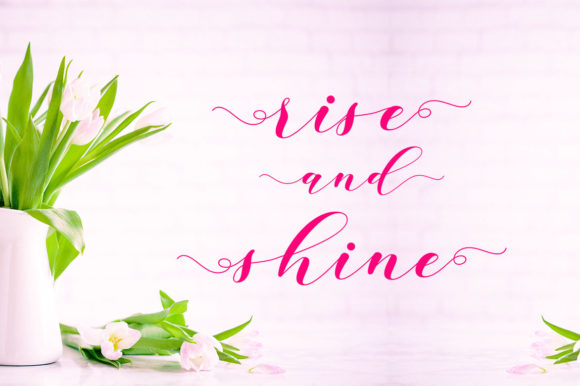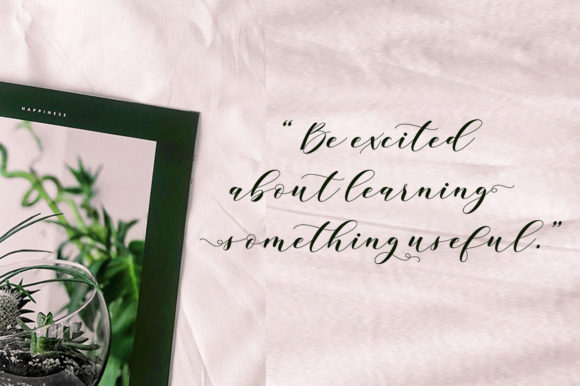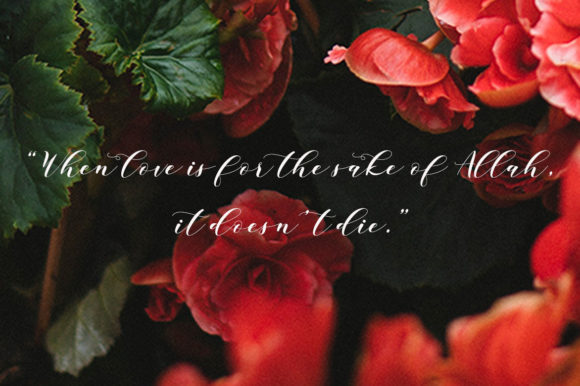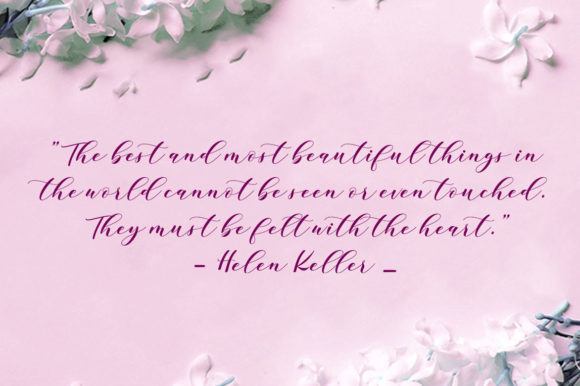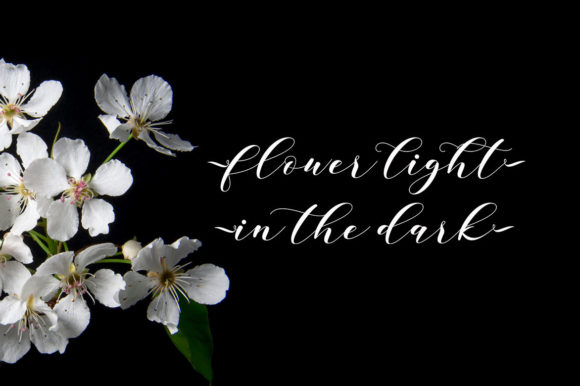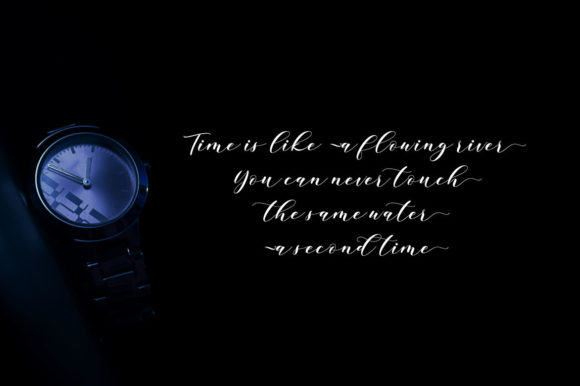
Introducing Baginda Font: Elevate Your Designs with Luxury and Elegance
Are you looking for a font that can add a touch of luxury and sophistication to your design projects? Look no further than Baginda Font, a beautiful light handwritten font that is sure to make your designs stand out. With its unique feel and stunning impact, Baginda Font is the perfect choice for designers and crafters who want to create something truly special.
What Makes Baginda Font So Special?
Baginda Font is a light handwritten font that boasts a unique and elegant feel. Its delicate lines and curves give it a sophisticated look that is perfect for a wide range of design projects, from wedding invitations and branding materials to packaging and advertising. Whether you’re looking to create something modern and trendy or classic and timeless, Baginda Font is the perfect choice.
The Power of PUA Encoding
One of the things that sets Baginda Font apart from other fonts is its PUA (Private Use Area) encoding. This means that you can access all of the amazing glyphs and ligatures with ease, giving you even more creative freedom and flexibility when it comes to designing with this font. With PUA encoding, you can easily access a wide range of special characters and glyphs, allowing you to add an extra layer of depth and interest to your designs.
Baginda Font is perfect for designers and crafters who want to add a touch of luxury and elegance to their projects. Whether you’re creating digital designs or handmade crafts, this font is sure to inspire and elevate your work. With its beautiful, flowing lines and delicate curves, Baginda Font is the perfect choice for a wide range of projects, including:
- Branding materials and logos
- Packaging and labeling
- Handmade crafts and DIY projects
Tips for Using Baginda Font
Key Features of Baginda Font
- Beautiful light handwritten font
- Unique feel and stunning impact
- Perfect for a wide range of design projects
- Elegant and sophisticated look